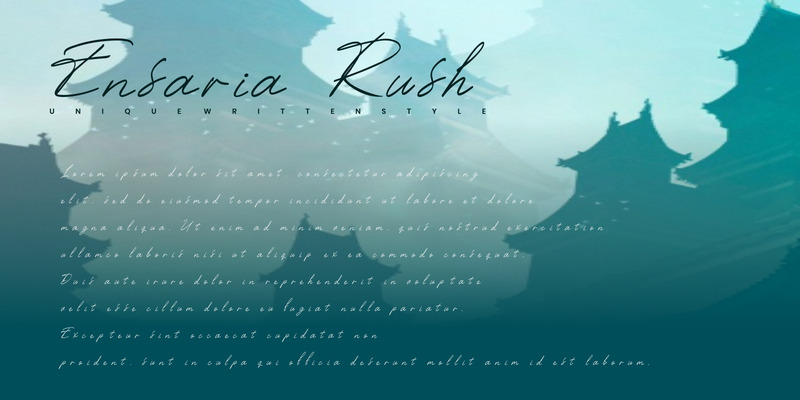
Ensaria Rush - Handwritten Font
Introducing **Ensaria Rush**, an elegant, simple, and beauty handwritten font.
So perfect for you who needs a typeface for logo designs, magazine, social media, brochure, and many more.